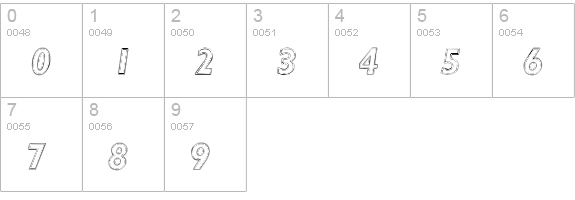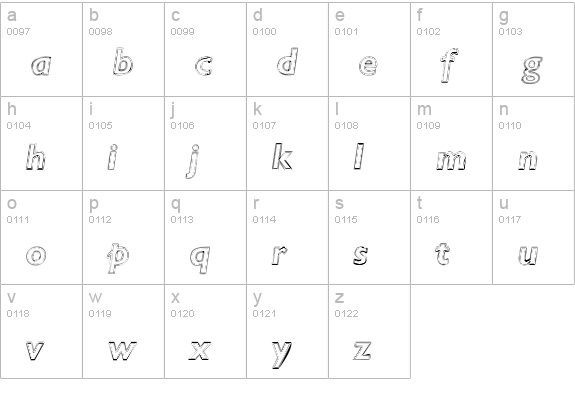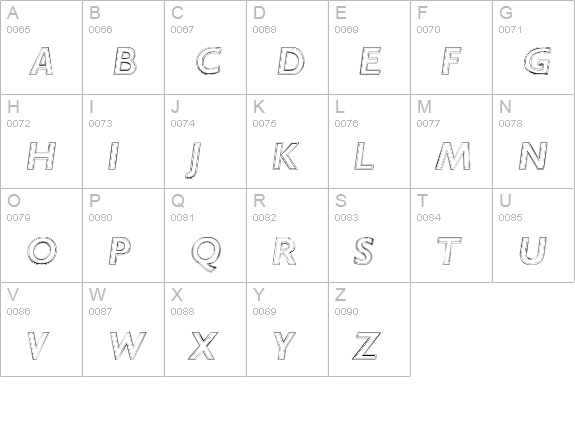
Ripplemere ThinItalic Font Details
Introducing Ripplemere ThinItalic, a sleek and elegant typeface that effortlessly combines modernity with sophistication. Its delicate, slanted design adds a touch of refinement to any project, making it perfect for branding, editorial design, and more. The ThinItalic variant of Ripplemere exudes a sense of grace and fluidity, making it ideal for conveying a sense of elegance and style. Best of all, Ripplemere ThinItalic is available for free download at FontsMarket.com. This means you can enhance your designs with this stunning font without any cost. Don't miss out on the opportunity to elevate your work with the beauty of Ripplemere ThinItalic - download it today and add a touch of sophistication to your projects.